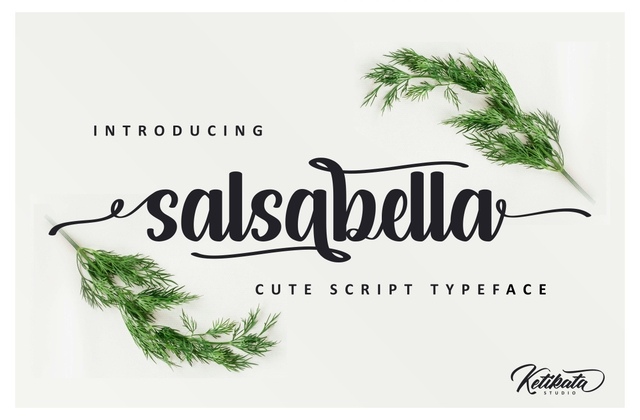
Salsabella Font
Salsabella Font dances across Latin dance studio branding, salsa festival posters, vibrant restaurant menus, tropical vacation promotions, beauty salon signage, fashion boutique displays, romantic wedding invitations, dance competition graphics, Latin music album covers, fiesta event materials, passionate greeting cards, and energetic social media campaigns where rhythm and feminine elegance create irresistible visual appeal.
This enchanting typeface generates excitement through its perfect fusion of passionate Latin rhythm with graceful feminine beauty that creates typography with undeniable charm and magnetic appeal. Salsabella Font captivates viewers with its flowing curves, rhythmic letterforms, and elegant flourishes that mirror the sensual movements of Latin dance and the timeless beauty of feminine grace. The font's sophisticated design approach incorporates dynamic elements that suggest movement and passion while maintaining excellent readability and professional polish. Its distinctive character reflects the joy, passion, and celebratory spirit of Latin culture, making it ideal for brands that want to communicate vibrancy, romance, and authentic cultural connection.
The Salsabella Font family encompasses multiple passionate variations including Regular, Bold, Light, Italic, and Script versions, each maintaining the font's characteristic rhythm and feminine elegance while offering different levels of dramatic expression. The collection features decorative swashes, alternative letterforms with enhanced flourishes, and special ligatures that create natural flow and dancing connections between letters. Additional ornamental elements include hearts, flourishes, and decorative borders that complement the font's romantic and passionate aesthetic.
Whether you're designing dance studio materials, creating beauty brand identities, developing romantic event promotions, or crafting passionate marketing campaigns, Salsabella Font delivers unmatched emotional resonance. Its ability to convey passion, femininity, and cultural celebration makes it invaluable for brands seeking to create strong emotional connections with their audiences. The font's rhythmic beauty ensures your designs will captivate viewers and communicate the joy, passion, and elegance that define exceptional Latin-inspired typography.